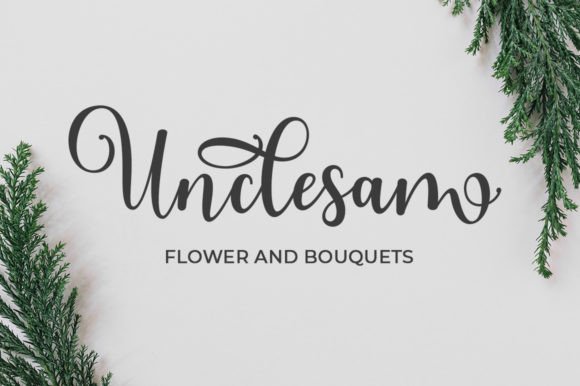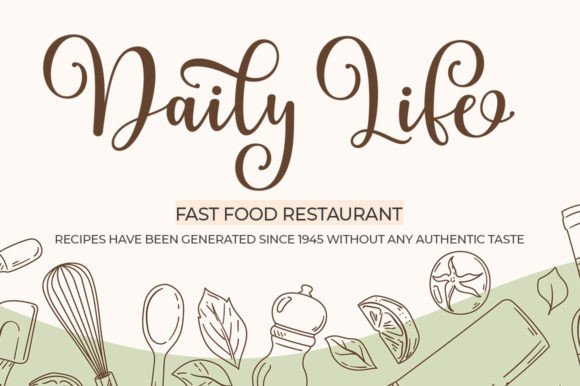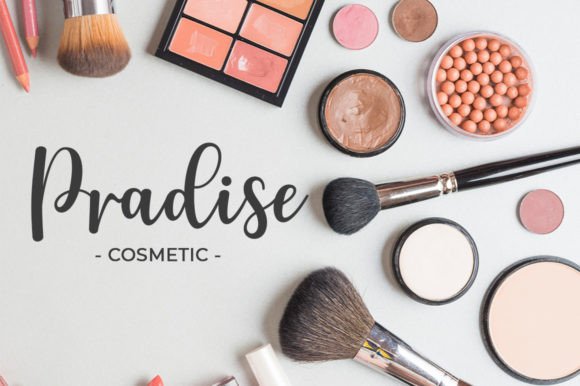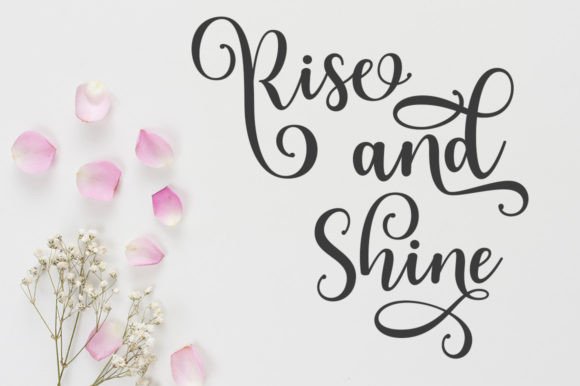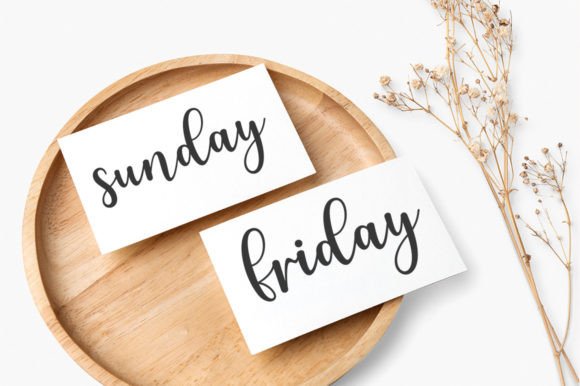
Introduction to Naughty Font
As designers, we’ve all been there – staring at a blank canvas, desperate for the perfect font to bring our creative project to life. The search is over, and I’m thrilled to introduce you to the Naughty Font, a game-changing addition to any design arsenal.
This exquisite handwritten font is a masterclass in elegance and sophistication, effortlessly blending traditional calligraphic influences with a modern, fresh aesthetic. Whether you’re working on a high-end branding project or a personal creative endeavor, the Naughty Font is the perfect companion to elevate your work to new heights.
Key Features of Naughty Font
- High-quality font design with a unique, playful style, perfect for creative projects that require a touch of whimsy.
Honest Review: Naughty Font
As a designer, I’m always on the lookout for high-quality design resources to elevate my creative projects. Recently, I stumbled upon the Naughty Font, and I’m excited to share my honest review with you.
What works well: ✨ The Naughty Font is incredibly versatile, making it perfect for a variety of creative projects. Its modern design and sleek typography make it a great addition to any design portfolio. The font is also available for free download, which is a huge plus for designers on a budget. Additionally, the font has a transparent background, making it easy to overlay on any design element.
Limitations: ⚠️ One of the limitations of the Naughty Font is that it may not be suitable for all types of projects. The font’s modern design may not be the best fit for more traditional or conservative projects. Additionally, while the font is high quality, it may not be as comprehensive as some other font collections.
Overall, I’m impressed with the Naughty Font. It’s a great addition to any design resource library, and its versatility makes it a valuable tool for designers. While it may have some limitations, I highly recommend giving it a try for your next creative project.
- Perfect for modern creative projects
How to Use Naughty Font
The Naughty Font is a unique design resource perfect for adding a touch of playfulness to your creative project. With its transparent background, this font is highly versatile and can be easily customized to fit your needs.
Tips for Getting the Most Out of the Naughty Font
To get the most out of the Naughty Font, try combining it with other high-quality design resources, such as graphics and textures. Experiment with different font sizes, colors, and arrangements to create unique and eye-catching designs.
Common Use Cases for the Naughty Font
The Naughty Font is perfect for a variety of creative projects, including:
- Children’s book illustrations
- Party invitations and decorations